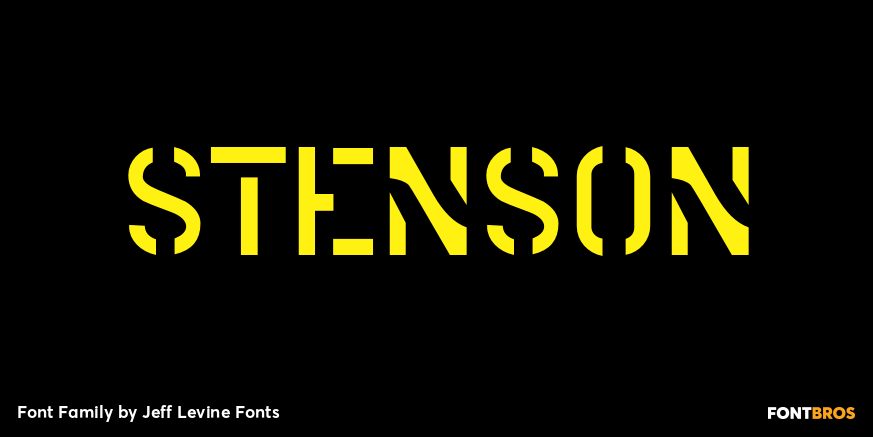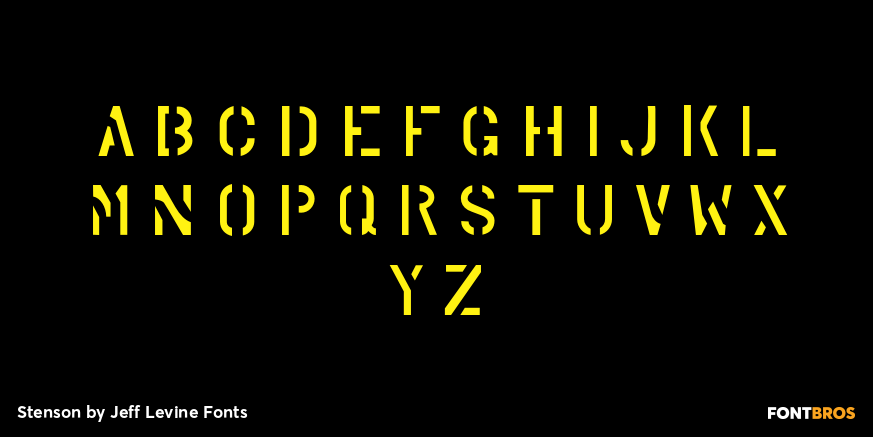
Stenson
Stenson JNL is another "lost" stencil typeface, re-drawn from punches made by a commercial stencil machine as used in rubber stamp shops and industrial warehouses.